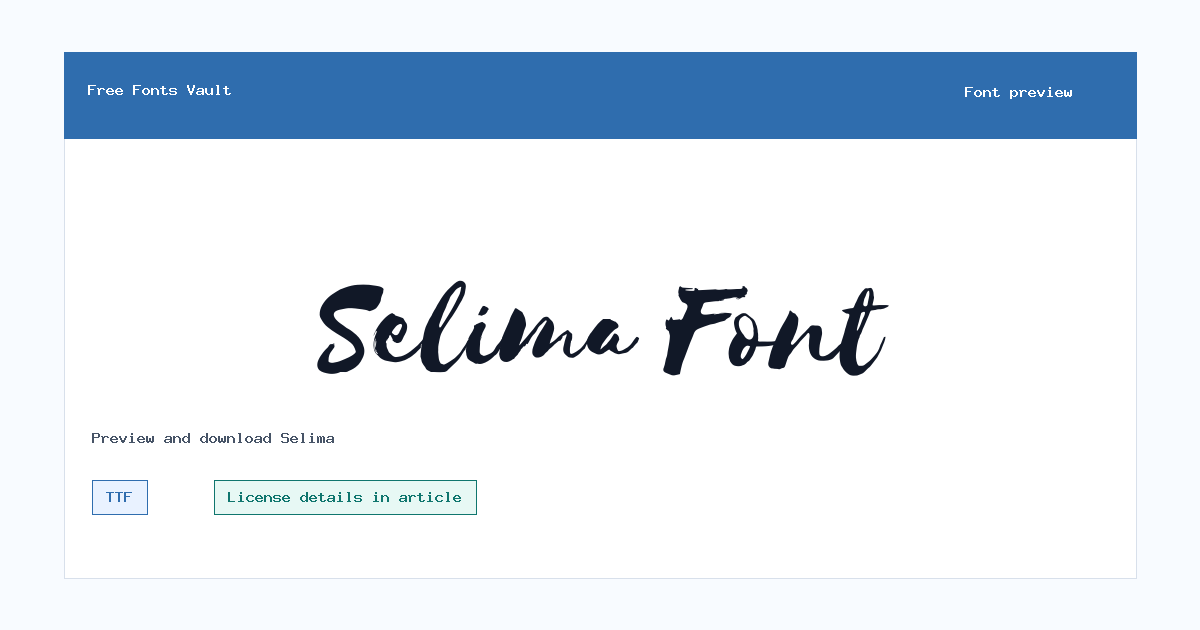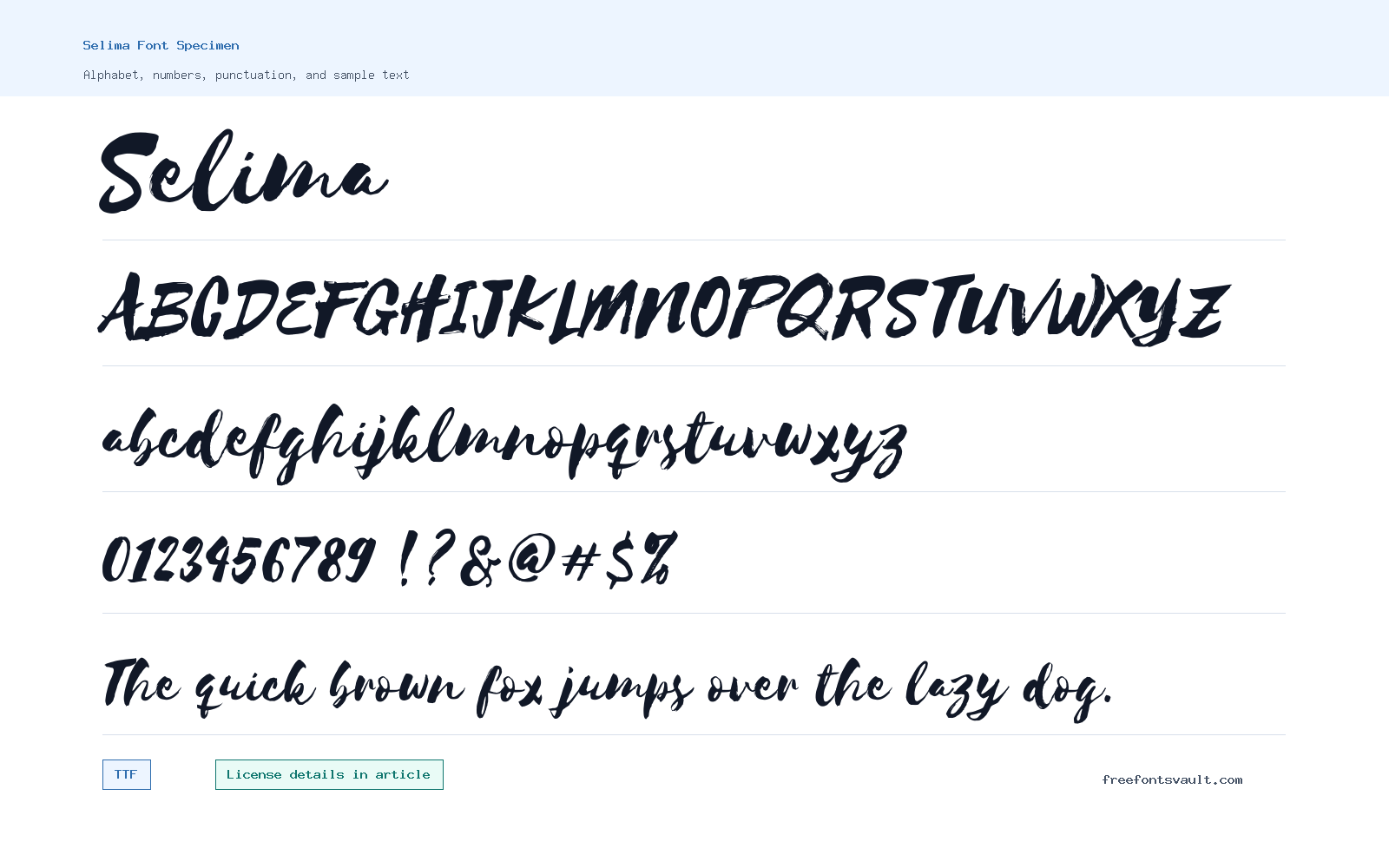
Selima
Selima font preview showing the family name
Selima Font
Selima font specimen showing alphabet, numbers, and sample text
• Designer @zamroni_agus
• Foundry @zamroni_agus
Selima font.
Selima is a brush script font with a loose handmade feel. It works best for short, expressive text such as names, quotes, badges, invitations, labels, logo drafts, and social graphics that need a casual handwritten style.
About Selima Font
Selima brings a painted rhythm to short words. The strokes feel relaxed and imperfect in a good way, which makes the font useful for designs that need warmth instead of strict geometry. Try it for greeting cards, packaging labels, boutique branding, Instagram quotes, poster accents, and informal title text.
Script fonts depend heavily on the exact word you type. Some names look beautiful, while others may need more spacing or a different companion font. Use the preview to test capitals, lowercase endings, punctuation, accented letters, and the full phrase you plan to use before downloading.
For a cleaner final design, let Selima handle the emotional part of the layout and keep supporting text simple. A neutral sans serif or readable serif can carry descriptions, dates, prices, or paragraph copy while Selima gives the design its handwritten accent.
• Brush script style with a casual handmade feel
• Useful for names, quotes, badges, cards, and social graphics
• Works best as an accent font paired with a simpler text face
• Logo drafts and handmade wordmarks
• Quote graphics and social media posts
• Invitations, greeting cards, and event accents
• Packaging labels and boutique branding ideas
• Posters, badges, stickers, and short decorative headlines
Selima is commonly credited to @zamroni_agus, while Jroh or Jroh Creative also appears in public font credits. If attribution matters for your project, confirm the credit from the download package or the creator source.
Keep Selima for short, high-impact text. Avoid long paragraphs, all-caps blocks, and very small sizes. If letters feel crowded, add a little spacing or use a larger size. Pair it with a clean companion font for menus, captions, and descriptions.
What kind of font is Selima?
Selima is a brush script display font. It has a casual handwritten style that suits short names, titles, quotes, badges, and decorative text.
Is Selima good for body text?
No. It is better for short display text. For paragraphs or small interface text, use a simpler font and keep Selima as an accent.
Who designed Selima?
Credits commonly point to @zamroni_agus, and public listings also mention Jroh or Jroh Creative. Confirm the exact credit from the download package if needed.